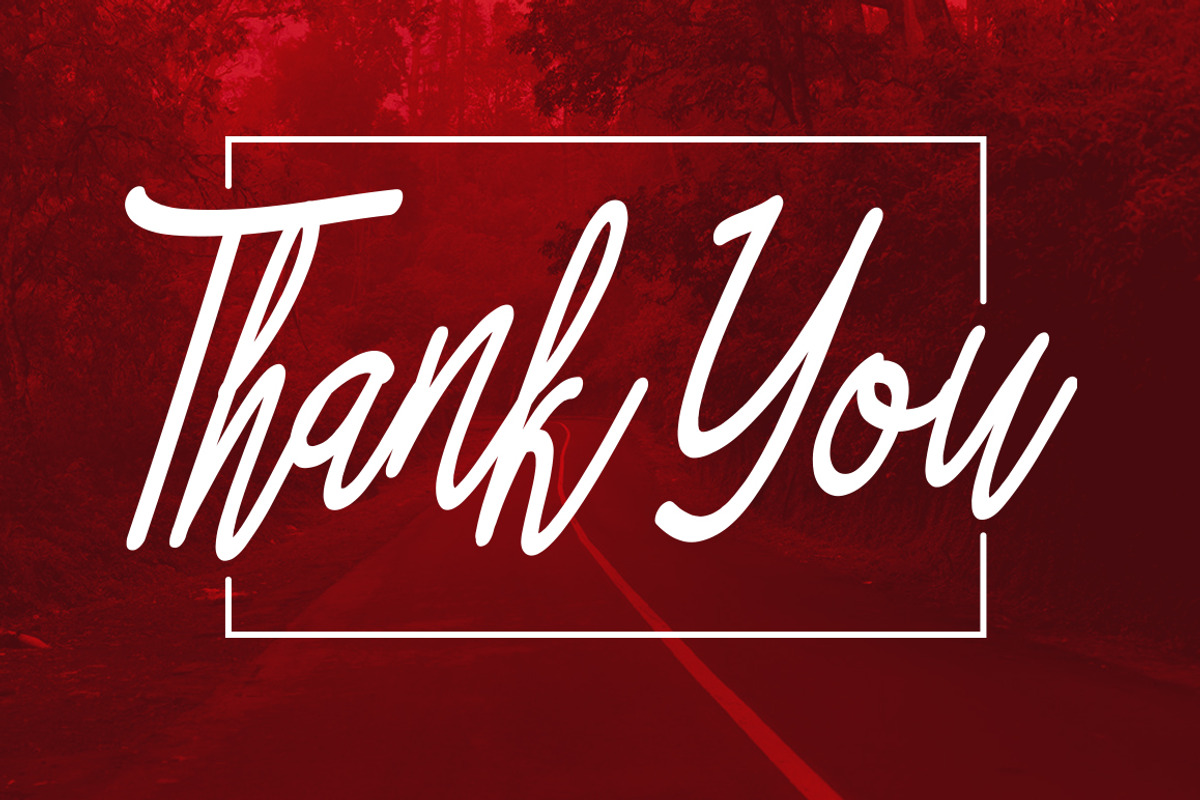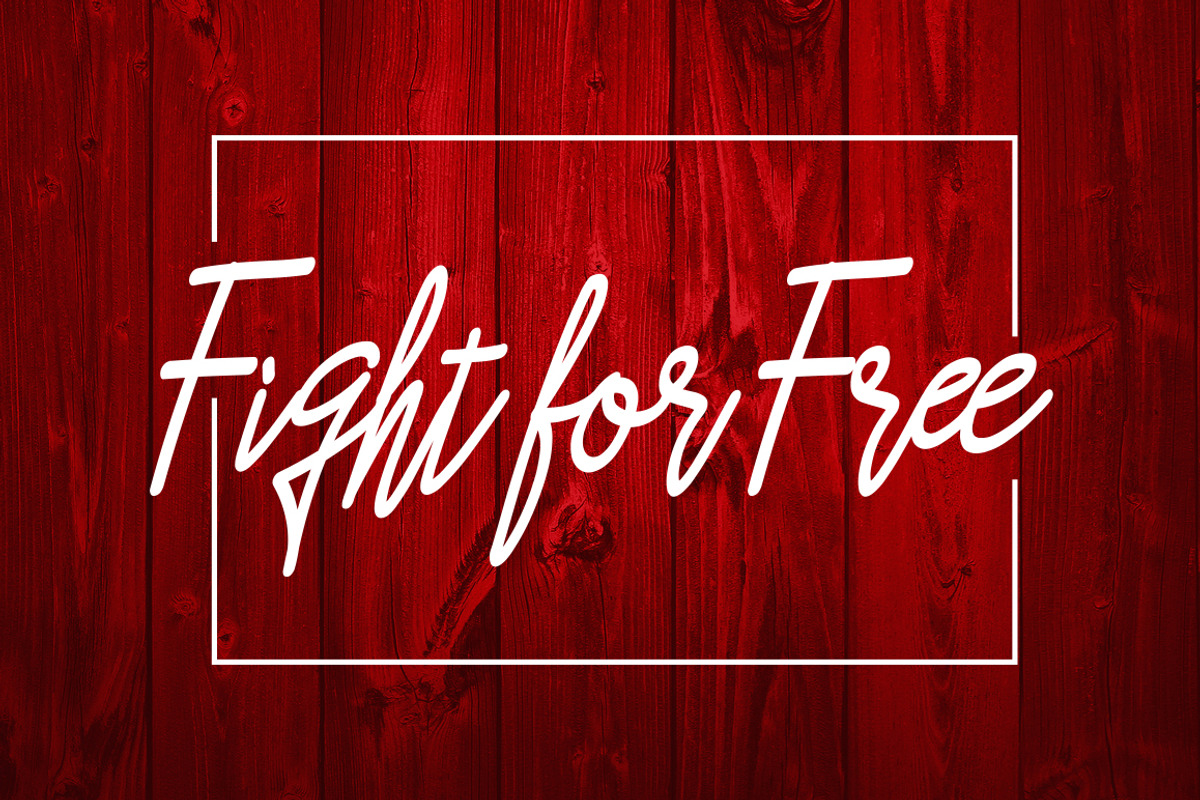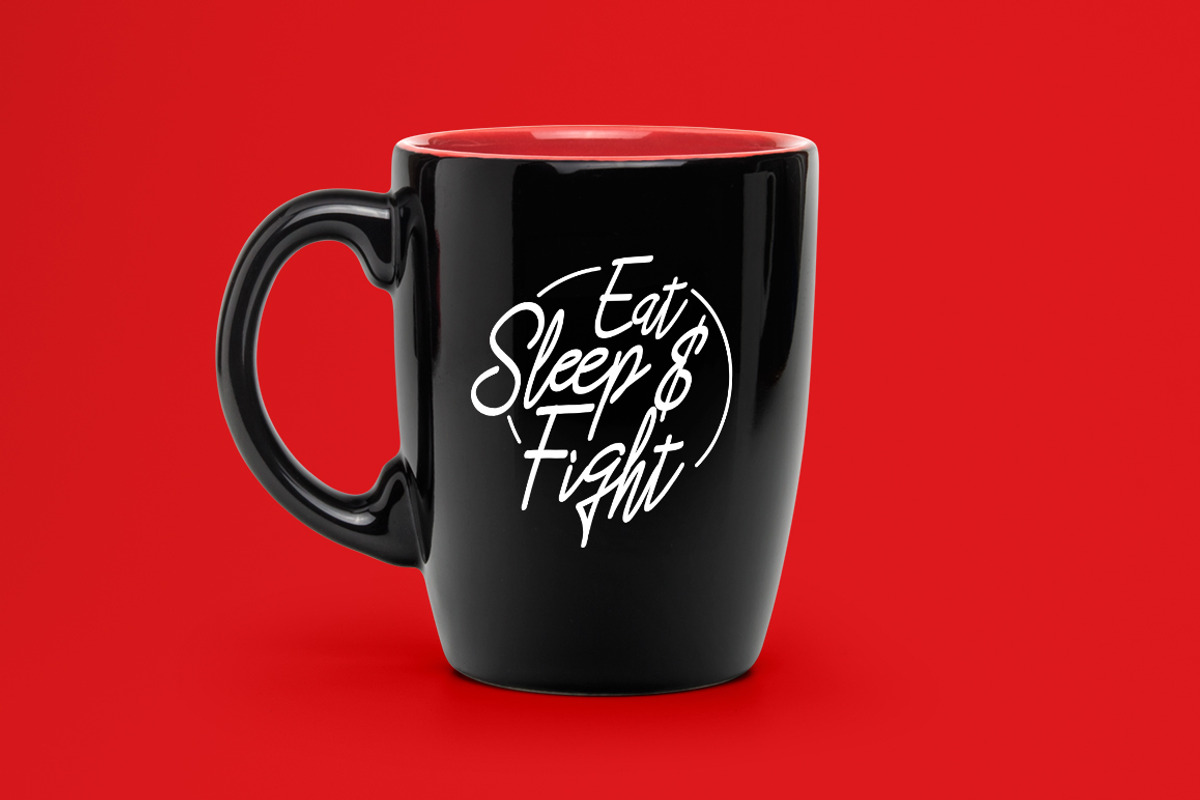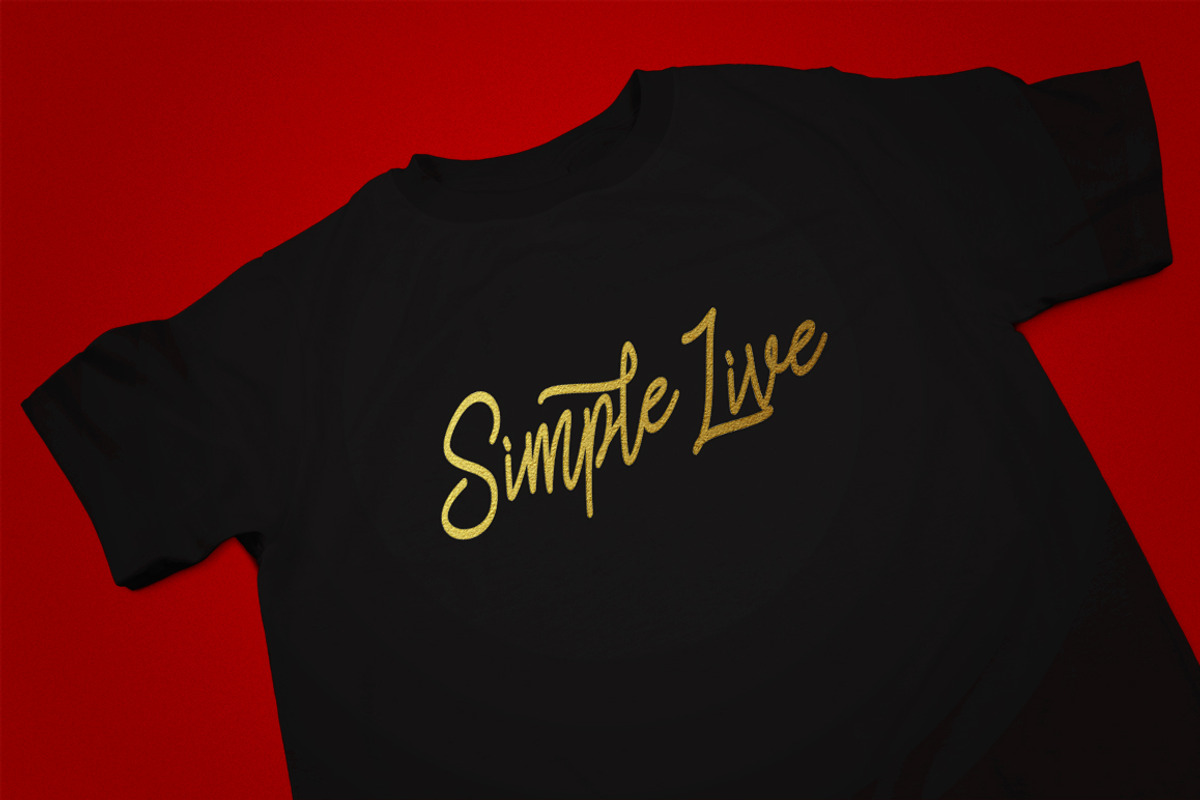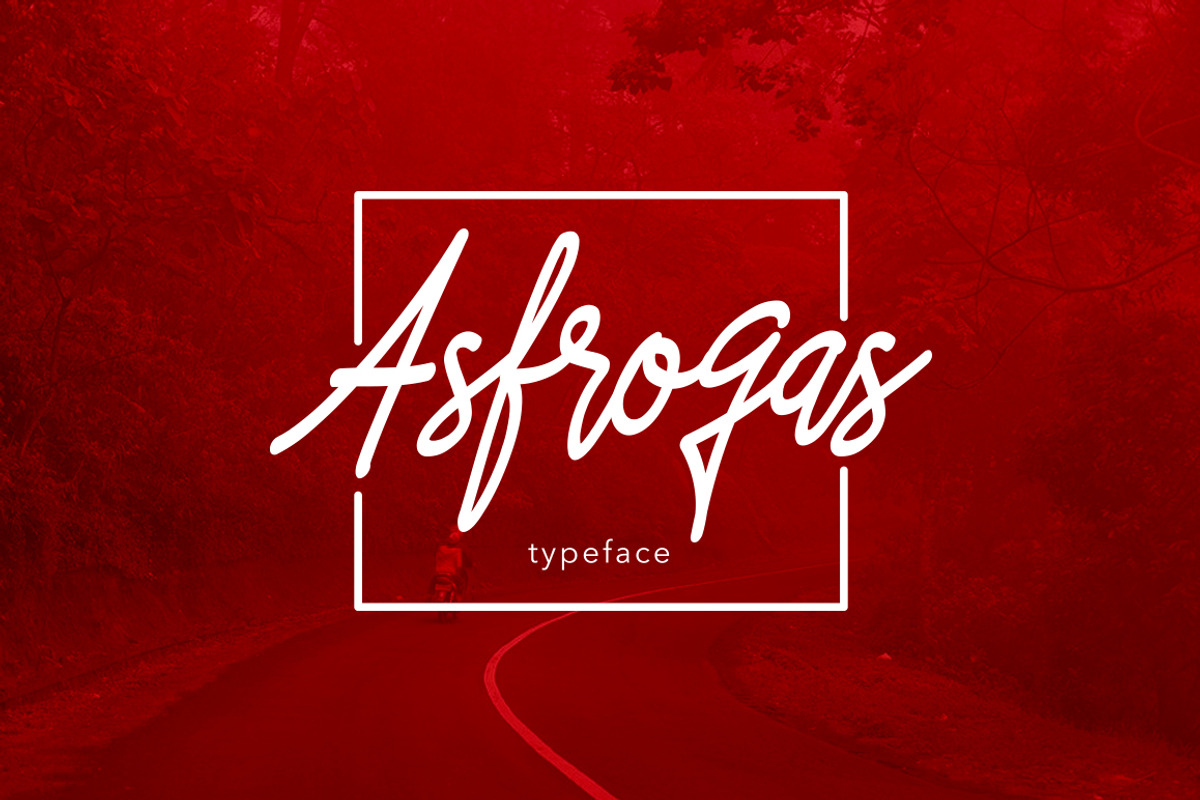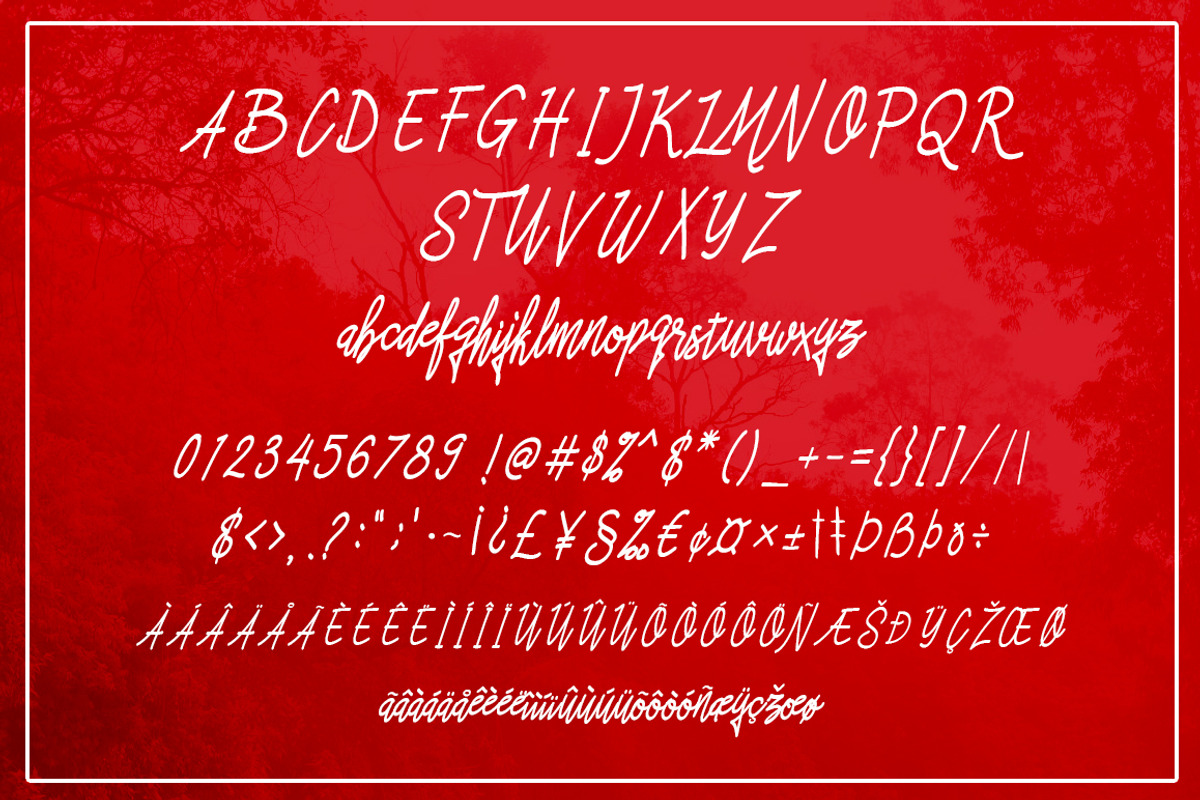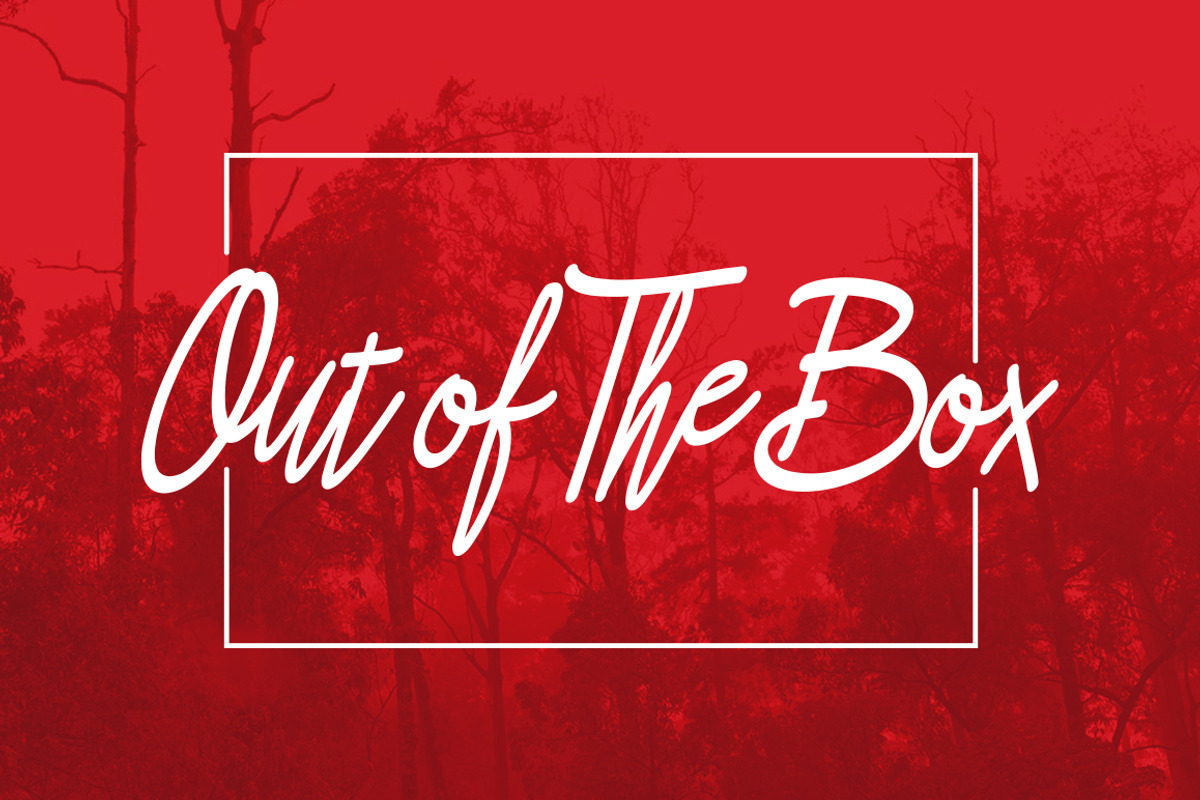
Asfrogas Typeface
Asfrogas Typeface by alit design is a font selected for branding, posters, packaging, typography.
Asfrogas Typeface by alit design fits naturally into Branding, posters, packaging, typography.